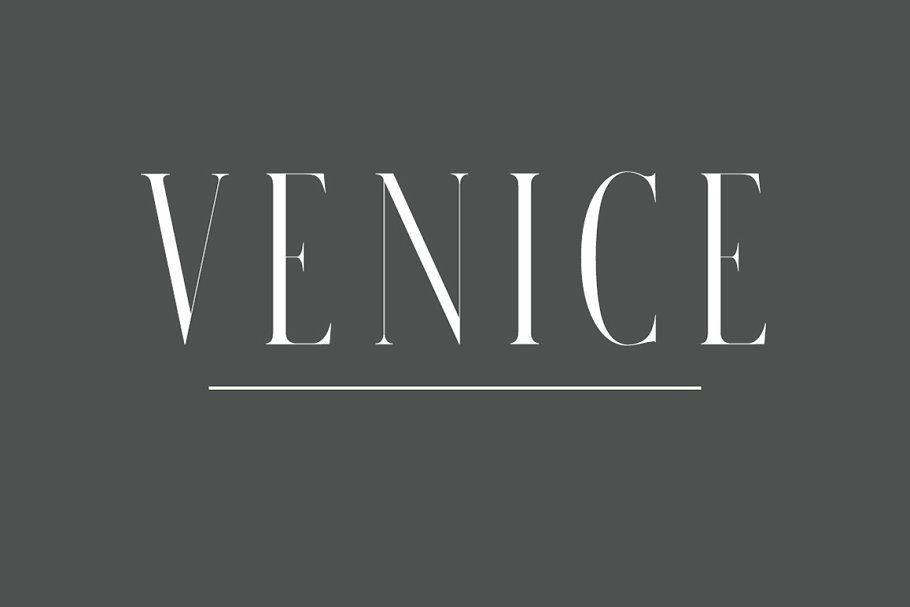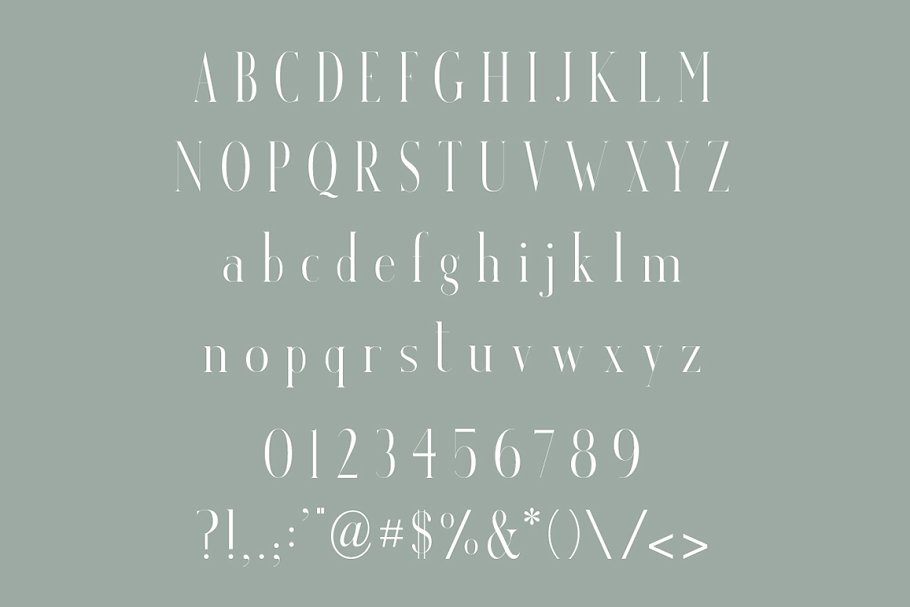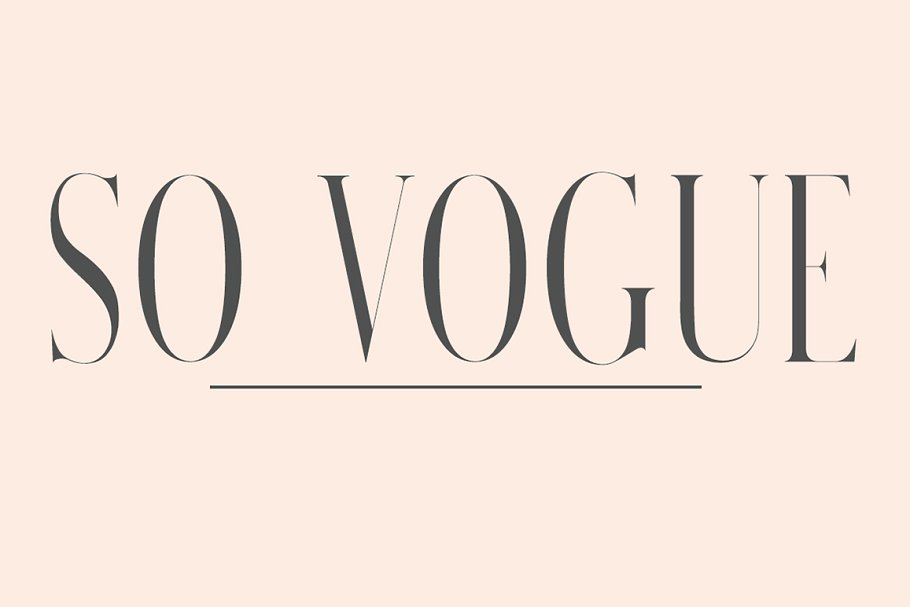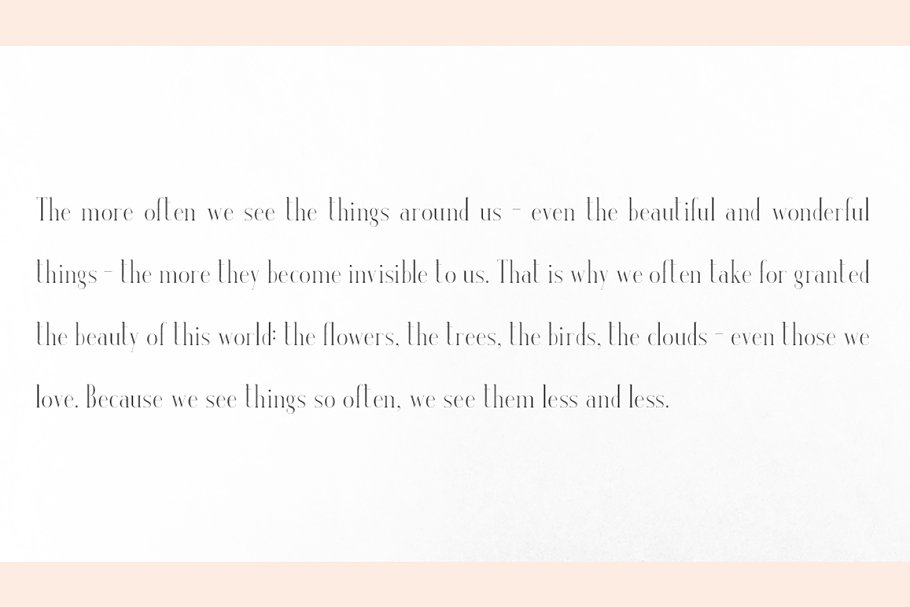
Venice A Beautiful Serif Font Family Free Download
About the Venice A Beautiful Serif Font
If you love Venice, check out Edinburgh – a super classic serifThis minimalistic and beautiful serif typeface features sleek lines and thin serifs with a classic ’90s Vogue feel, Perfect for gorgeous logos & titles, layouts & content, or large & small scale, Venice will pair beautifully with many fonts and work well with whatever project you’re working on